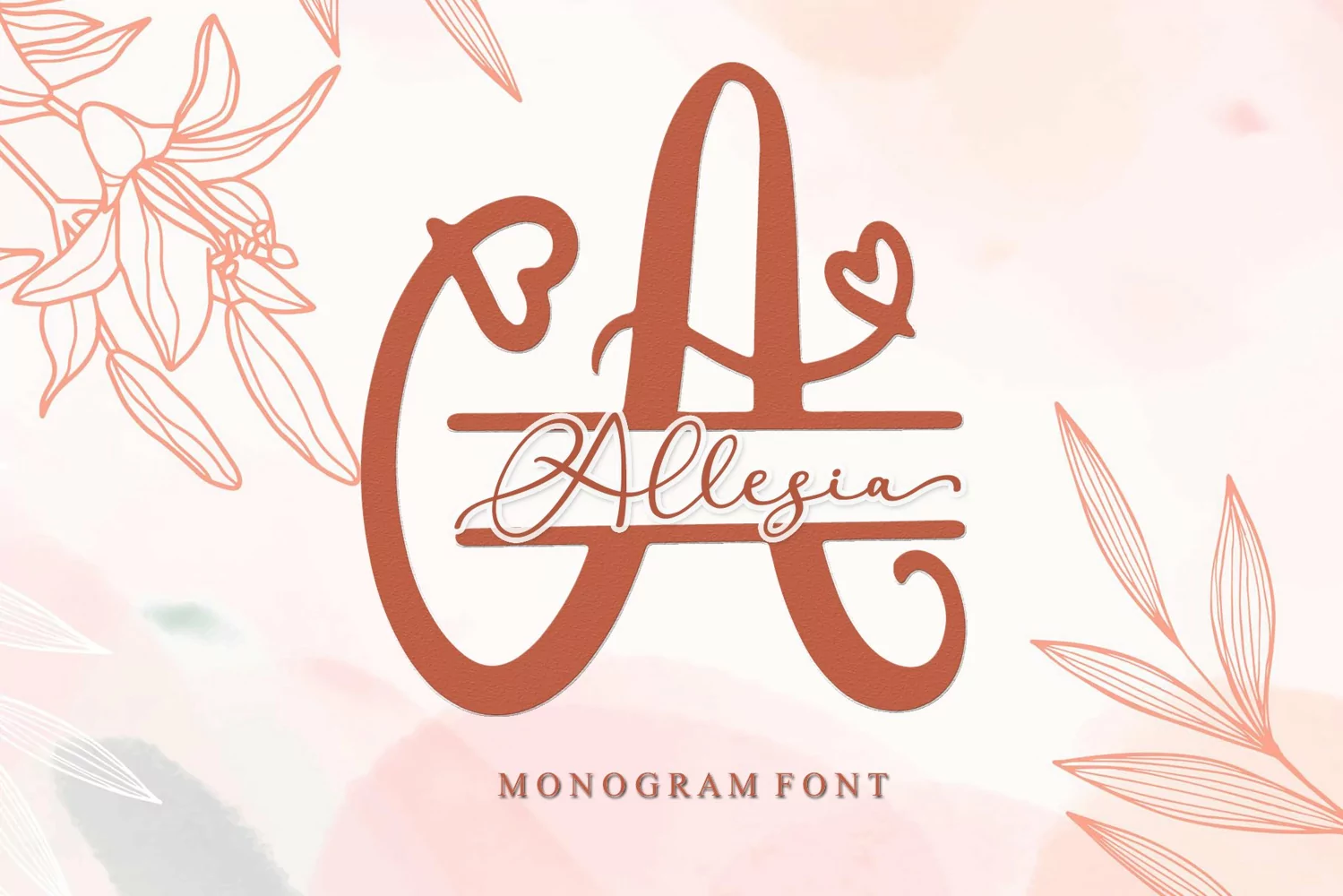
Allesia Monogram
Alessia Monogram is a lovely monogram font. This font can be used for branding, logos, craft or other designs.
This font contains the Monogram only.